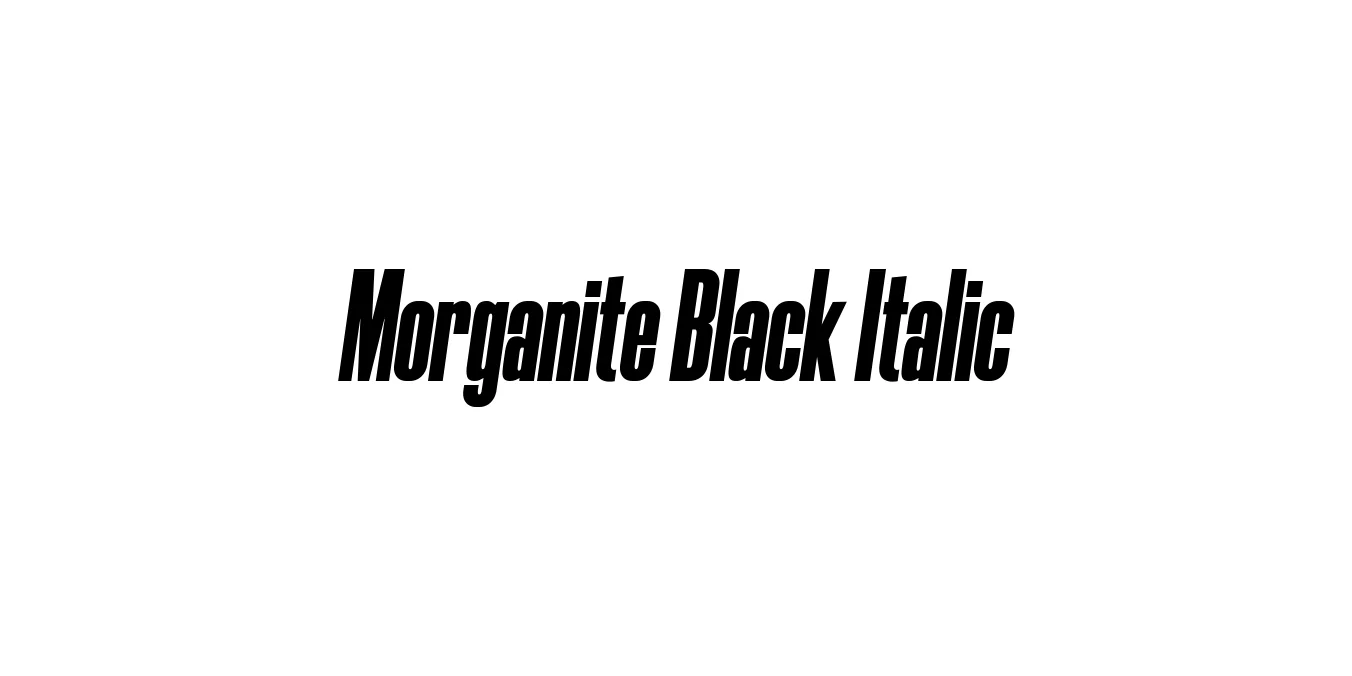
Morganite Black Italic
Designed by Rajesh Rajput
Morganite Black Italic is a striking, ultra-condensed typeface crafted by the Indian designer Rajesh Rajput. Part of the larger Morganite family which encompasses 18 different styles, the Black Italic variant is specifically engineered for high-impact visual communication. Its elongated proportions and heavy weight, combined with a sharp italic slant, create a sense of dynamic movement and modern sophistication that is hard to ignore in any design layout.
This typeface is highly favored in the contemporary design world for its ability to provide a bold, authoritative voice while maintaining a very slim horizontal footprint. This makes it an ideal choice for editorial layouts, cinematic posters, and digital banners where screen real estate is limited but a strong statement is required. The clean lines and tight spacing of Morganite Black Italic ensure it remains legible and stylish across both print and digital mediums.
Morganite Black Italic Best Uses
Perfect for tall, aggressive titles in magazines and newspapers.
Ideal for cinematic and event posters requiring a bold vertical presence.
Strong choice for high-fashion or tech industry logos and identity systems.
Excellent for creating punchy, vertical graphics for Instagram stories and TikTok.